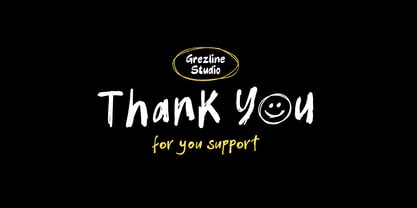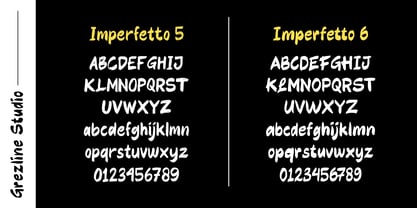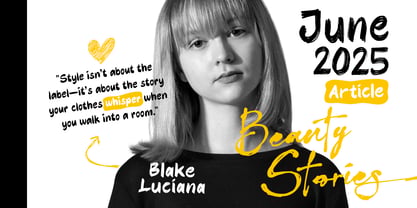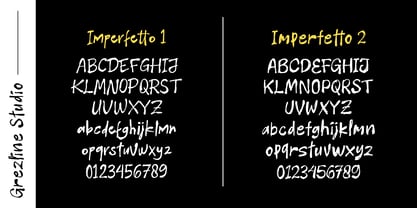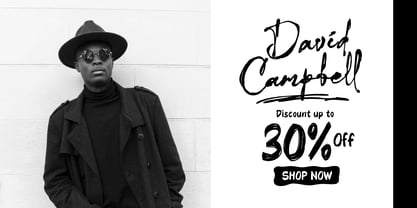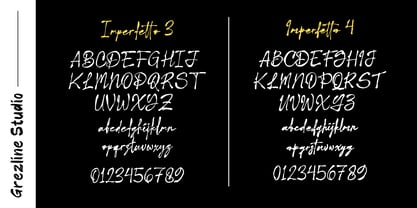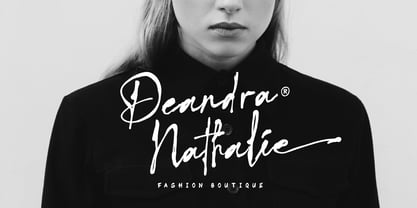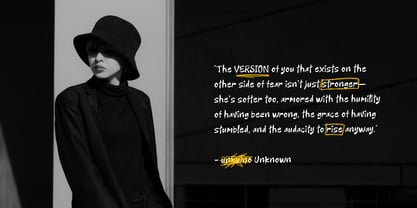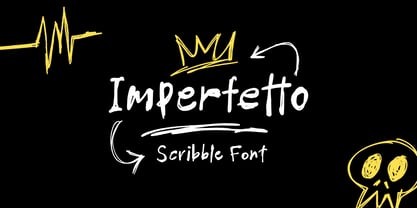
Imperfetto
La famille de polices Imperfetto a été conçue par Akhmad Reza Fauzi et publiée par Grezline Studio. Imperfetto contient 7 styles et options de package familial. En savoir plus sur cette famille
There’s a wild magic in the first draft—the spark of an idea before the rules kick in. The Imperfetto Font Family bottles that raw, unfiltered creative energy and delivers it straight to your design. This is the typeface for the designer who refuses to be boxed in, for the brand that values authenticity over sterility. The Imperfetto Font Family is ideally suited for disruptive branding, high-impact social media, merchandise, poster design, and any creative project where conveying a spontaneous, unpolished, and intensely human authenticity is the key goal. Feature : - Alternate and Ligature - Multilingual Language - Works on PC & Mac - Simple installations - Accessible in the Adobe Illustrator, Adobe Photoshop, Adobe InDesign, even works on Microsoft Word. Thank you for your support -Akhmad / Grezline Studio